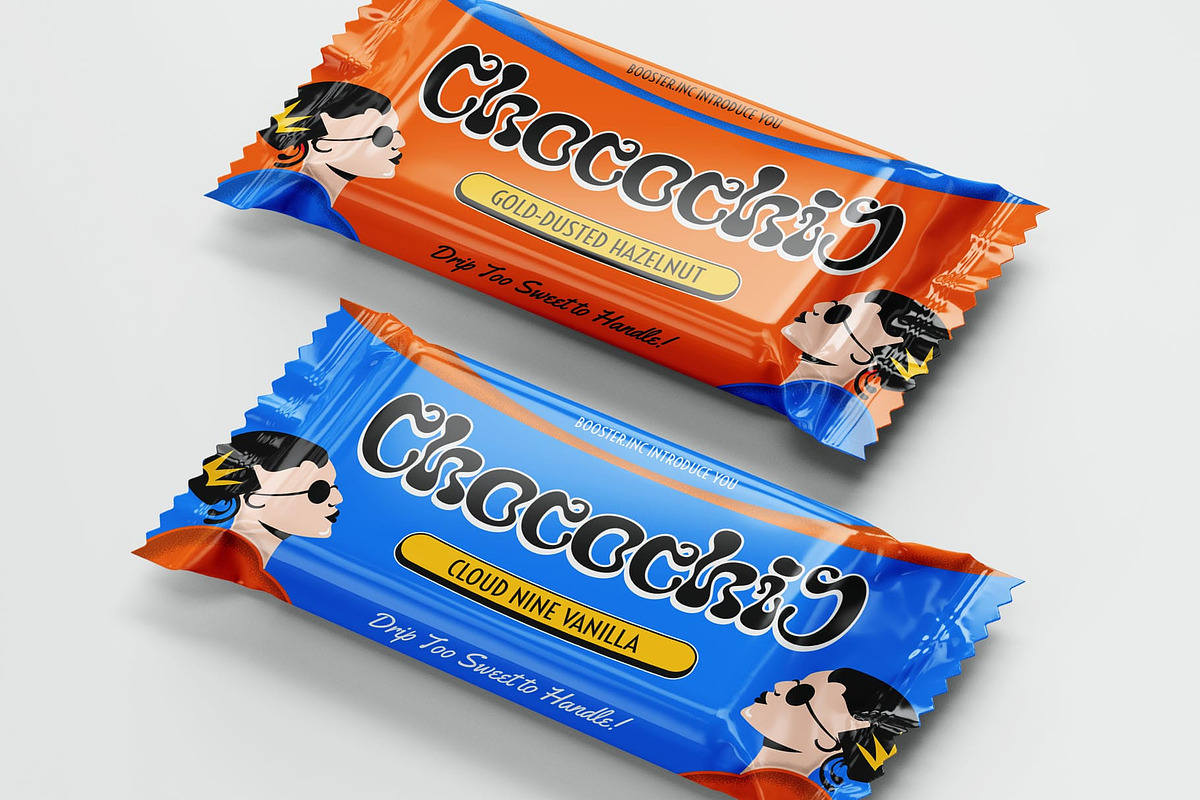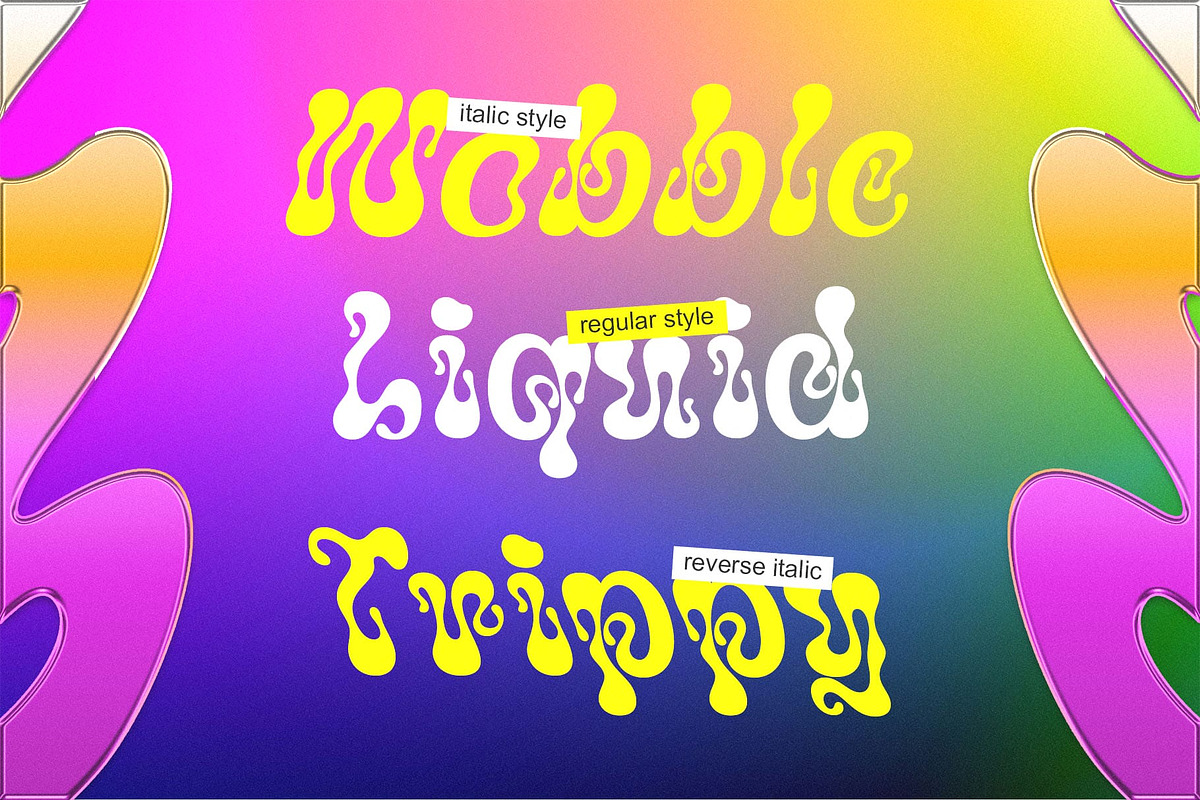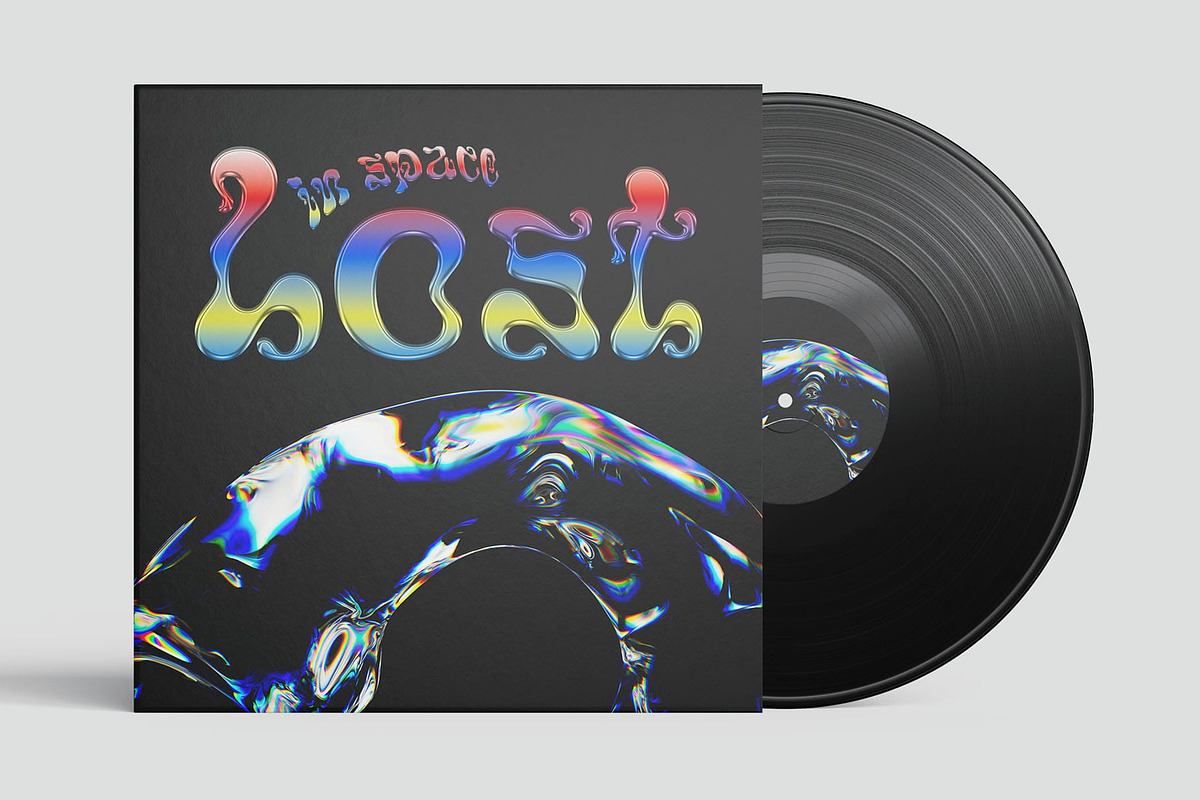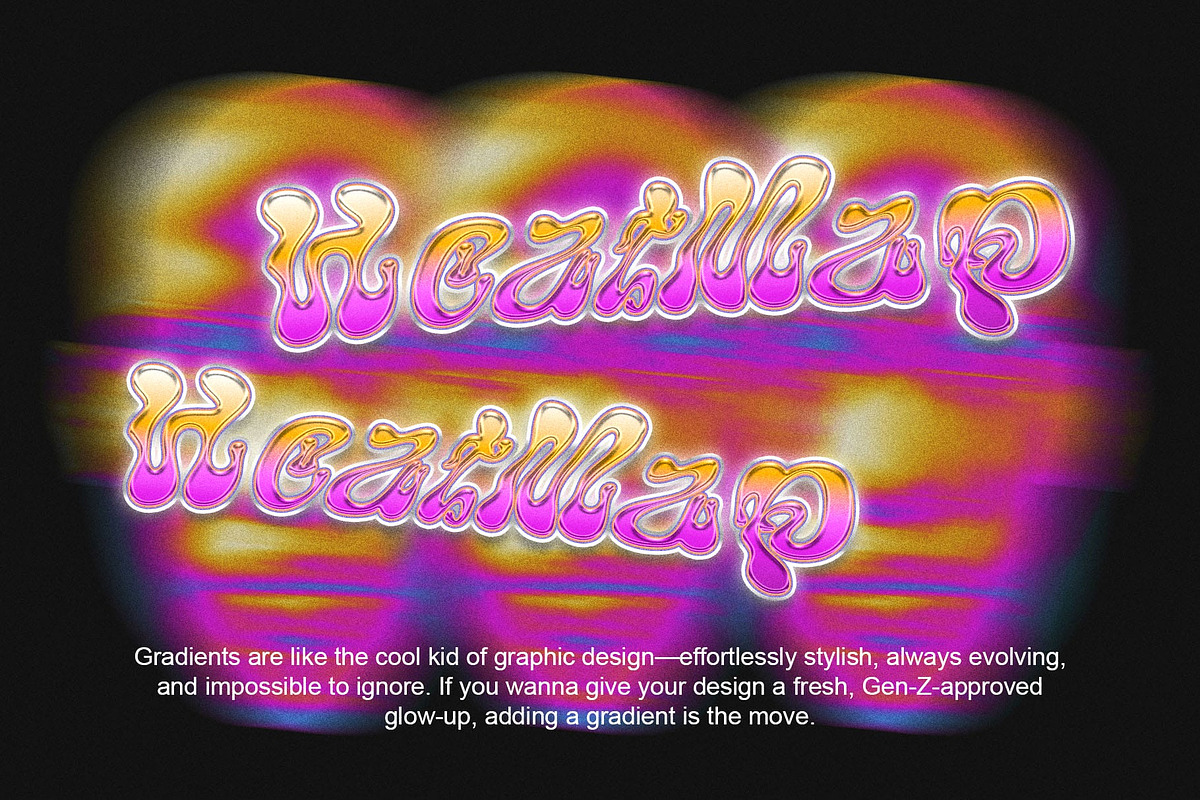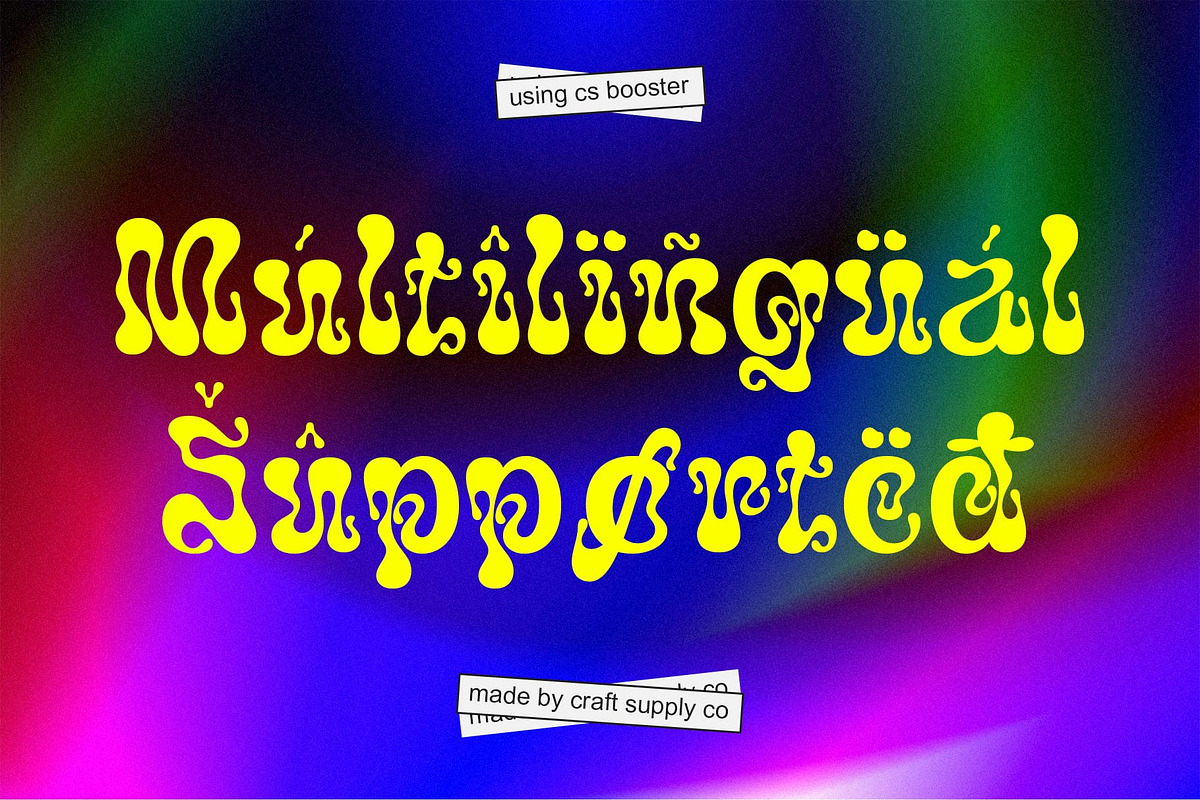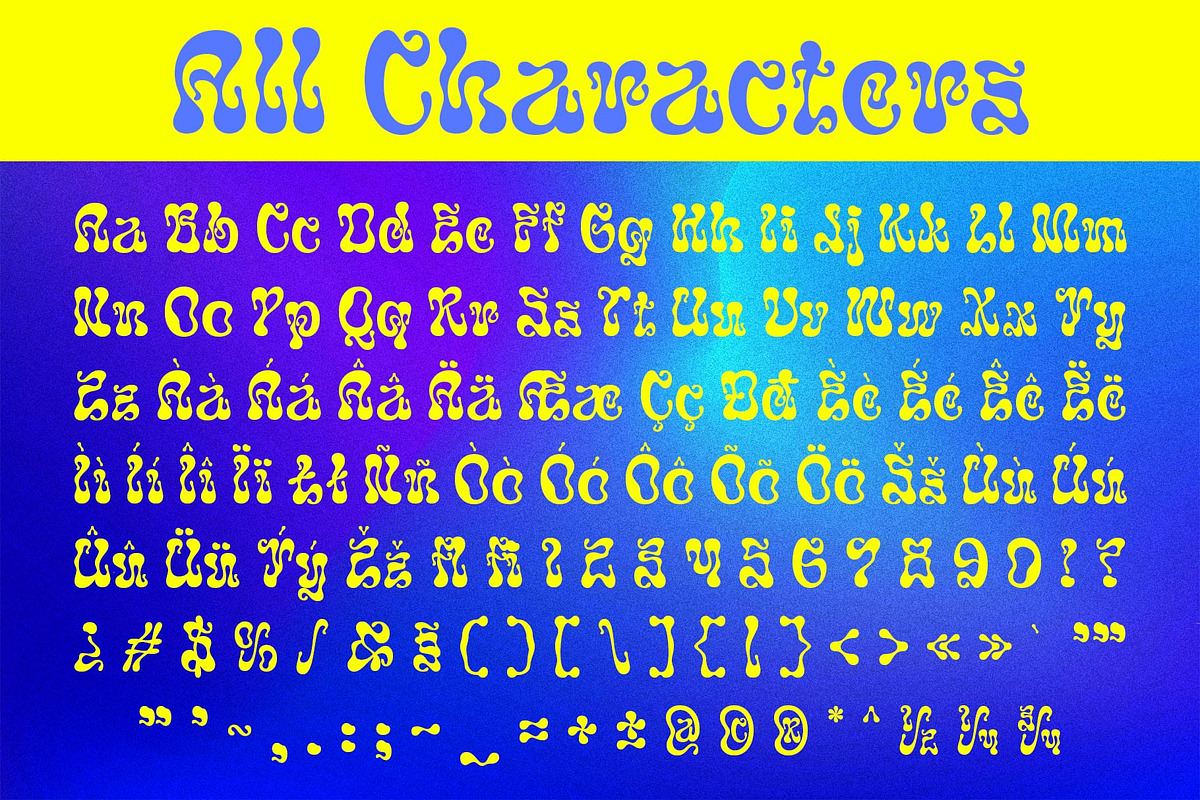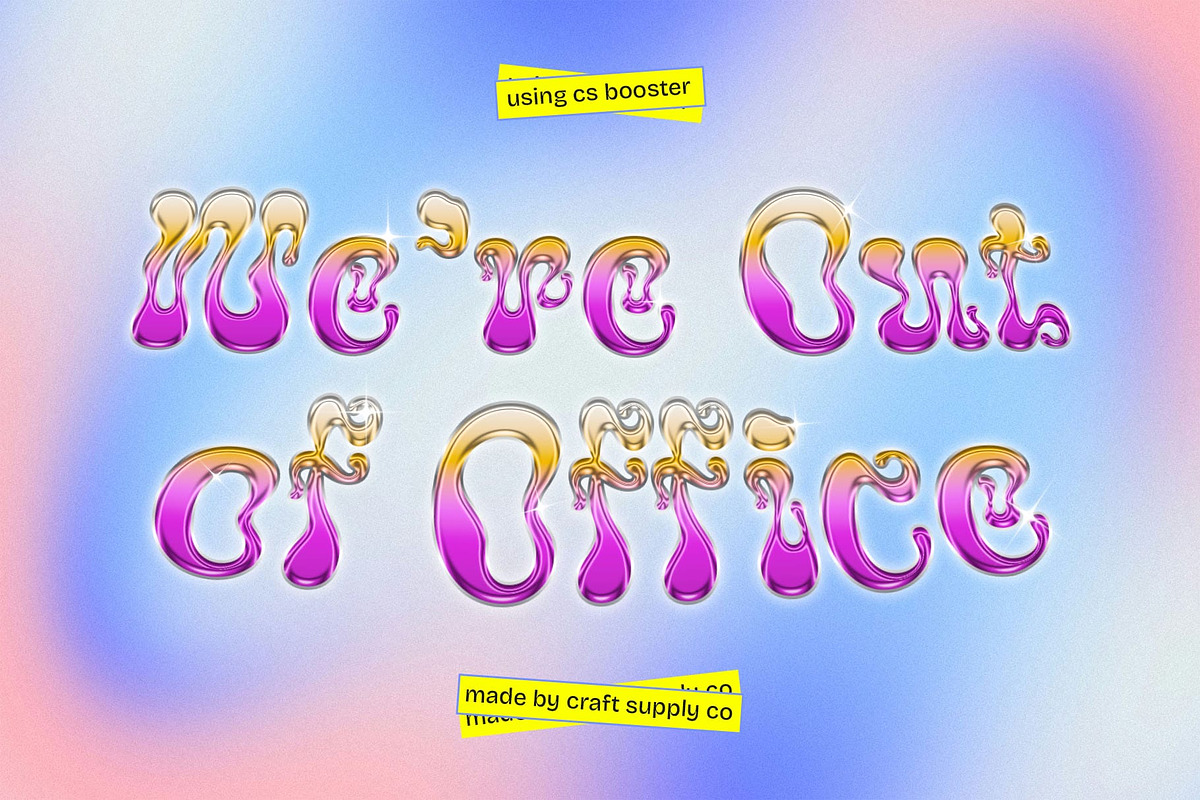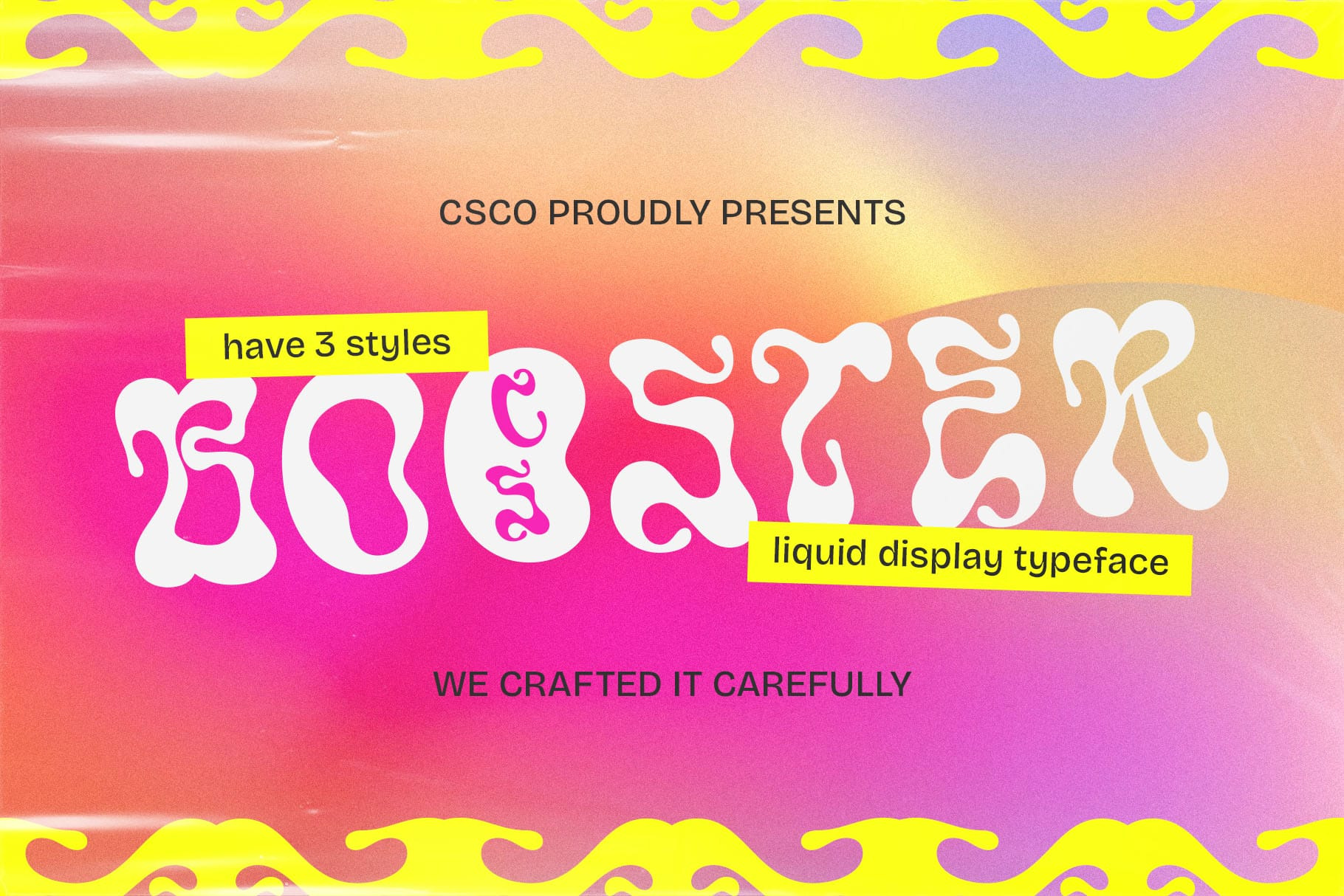
CS Booster – Liquid Font
CS Booster – A Liquid Display Font with Dynamic Flow
Modern Display Font with a Liquid Aesthetic CS Booster is a futuristic display font designed with a fluid and organic form, giving it a smooth, flexible, and ever-moving appearance. The unique liquid-inspired shapes and non-rigid edges make this font stand out, offering a dynamic feel that is both playful and experimental. Whether used in bold, energetic branding or digital artwork, CS Booster ensures a modern and captivating visual presence.
Wave and Fluid Distortion for a Unique Look One of the defining features of CS Booster is its wave-like distortions and fluid motion effects. The letters seem to melt, ripple, or stretch, creating a sense of movement that feels futuristic and surreal. This dynamic effect makes CS Booster perfect for designers looking to add a high-energy and unconventional touch to their projects.
Glossy, Futuristic, and Attention-Grabbing CS Booster carries a sleek and glossy aesthetic, enhancing its modern and cutting-edge appeal. The bold yet soft letterforms retain clarity while maintaining an innovative and experimental feel. The fluid shapes combined with a polished, futuristic finish ensure that this font captures attention in both digital and print media.
Perfect for Experimental and Creative Projects Designed for those who want to push creative boundaries, CS Booster is ideal for innovative branding, futuristic tech designs, music festival posters, gaming graphics, and digital media.
- CS Booster Regular
- CS Booster Italic
- CS Booster Reverse Italic